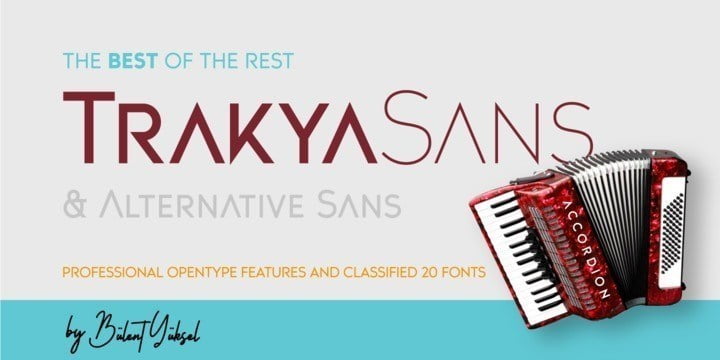
Trakya Sans Serif Font
Trakya Sans Font features unique and modern sans serif look and feel. Perfect for gorgeous logos, titles, web layouts and branding.
It looks gorgeous in all caps with a wide-set spacing if you want to try a classy look, or beautiful on its own in capital and lowercase letters for something completely timeless.